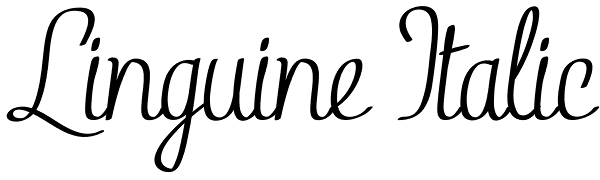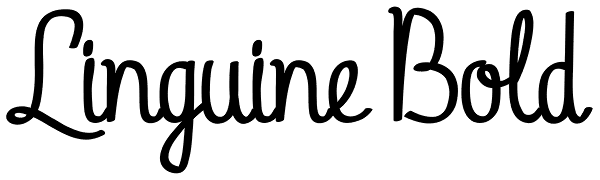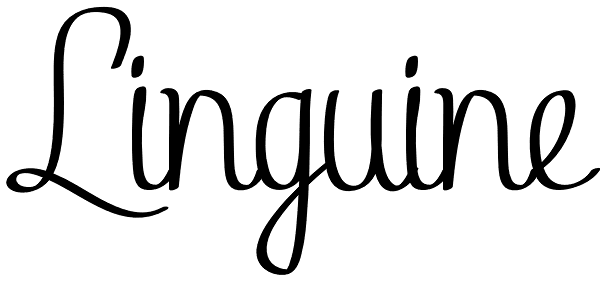
Linguine
Linguine is a flowing script family with plenty of automatic ligatures, Swash initials, Small caps and Ornaments. You can easily access these features in any Opentype savvy program.